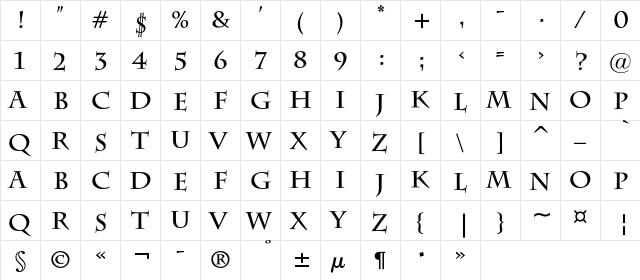
CharlotteAP Bold
Design Context for CharlotteAP Typeface
CharlotteAP offers clean, dependable letterforms without strong stylistic allegiance, making it a practical choice for designers who need flexibility. The heavy weight commands attention and anchors typographic hierarchies.